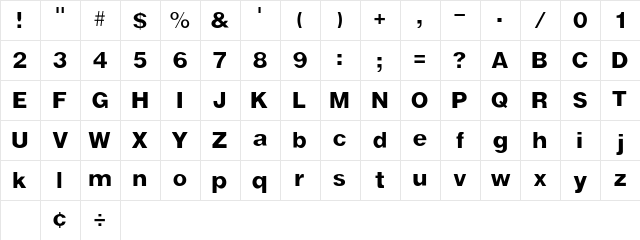
VivasSSK Regular
Design Context for VivasSSK Typeface
VivasSSK takes a measured approach to typography — its balanced proportions and neutral character make it a reliable workhorse for both digital and print work.